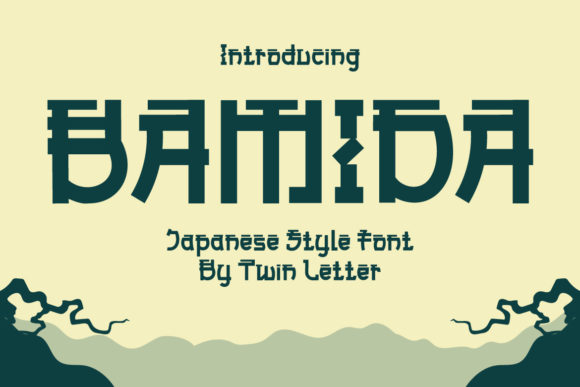
Bamida Faux Japanese Font: Elevate Your Designs with a Touch of Elegance
In the world of design, fonts play a crucial role in conveying the message and aesthetic of a project. For designers and crafters looking to add a touch of elegance and uniqueness to their work, the Bamida Faux Japanese Font is an excellent choice. This Japanese-themed display font is designed to create a stunning, natural, and elegant visual presentation that captivates audiences.
The Unique Charm of Bamida Faux Japanese Font
Bamida stands out with its distinctive, natural, and elegant design. The font uses the most natural fonts to create a visual presentation that is not only beautiful but also striking and memorable. Whether you’re working on a logotype, food banners, branding, brochures, posters, movie titles, book titles, quotes, or more, Bamida is the perfect choice. Its unique charm lies in its ability to make any project stand out, drawing viewers in with its striking and unusual graphic display.
One of the key benefits of the Bamida Faux Japanese Font is its versatility. It’s suitable for a wide range of design projects, from digital to print. Designers can use it to create:
• Logotypes that leave a lasting impression
• Food banners that are appetizing and eye-catching
• Branding materials that reflect a unique identity
• Brochures and posters that capture attention
• Movie and book titles that convey a sense of drama or elegance
• Quotes that inspire and motivate
This versatility makes Bamida a valuable addition to any designer’s toolkit, allowing for endless creativity and innovation.
Why Choose Bamida Faux Japanese Font?
There are several reasons why designers and crafters should consider Bamida for their projects:
1. Elegant Visuals: The font provides a natural and elegant look that enhances any design.
2. Memorability: Its striking design makes projects more memorable and engaging.
3. Versatility: Suitable for a wide range of design projects, from digital to print.
How to Make Your Designs Stand Out with Bamida
To truly leverage the potential of the Bamida Faux Japanese Font, consider the following tips:
• Pair with Complementary Fonts: Use Bamida as a headline font and pair it with a simpler font for body text to create contrast and visual interest.
• Experiment with Colors: Take advantage of the font’s elegant design by experimenting with different colors that match your brand’s palette or project theme.
• Play with Sizes: Utilize varying font sizes to create a hierarchy of information, making your design more dynamic and engaging.
The Bamida Faux Japanese Font is a powerful tool for designers and crafters looking to add a touch of elegance and uniqueness to their projects. With its natural, elegant design, versatility, and ease of use, Bamida is poised to elevate your designs to new heights. Whether you’re working on a branding project, marketing materials, or creative crafts, incorporating Bamida will ensure your work stands out and leaves a lasting impression on your audience. Start utilizing this exceptional font in your projects today and witness the transformation it brings.